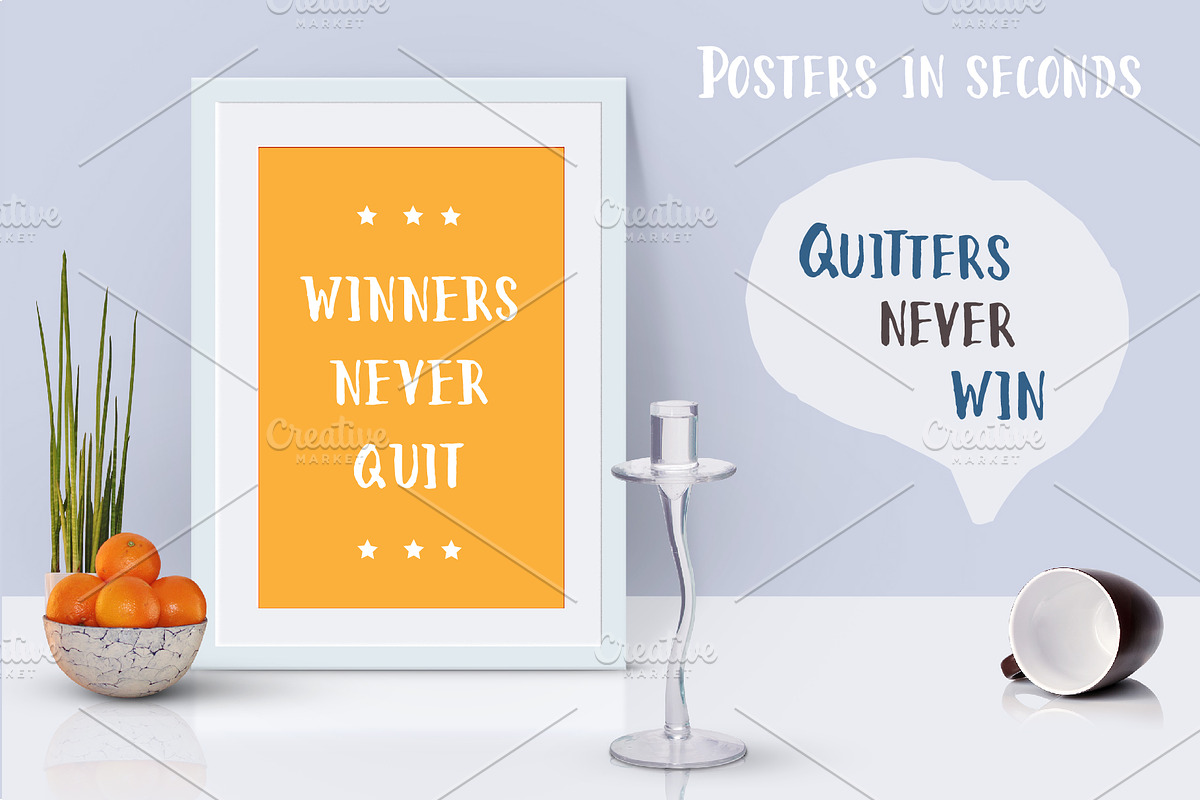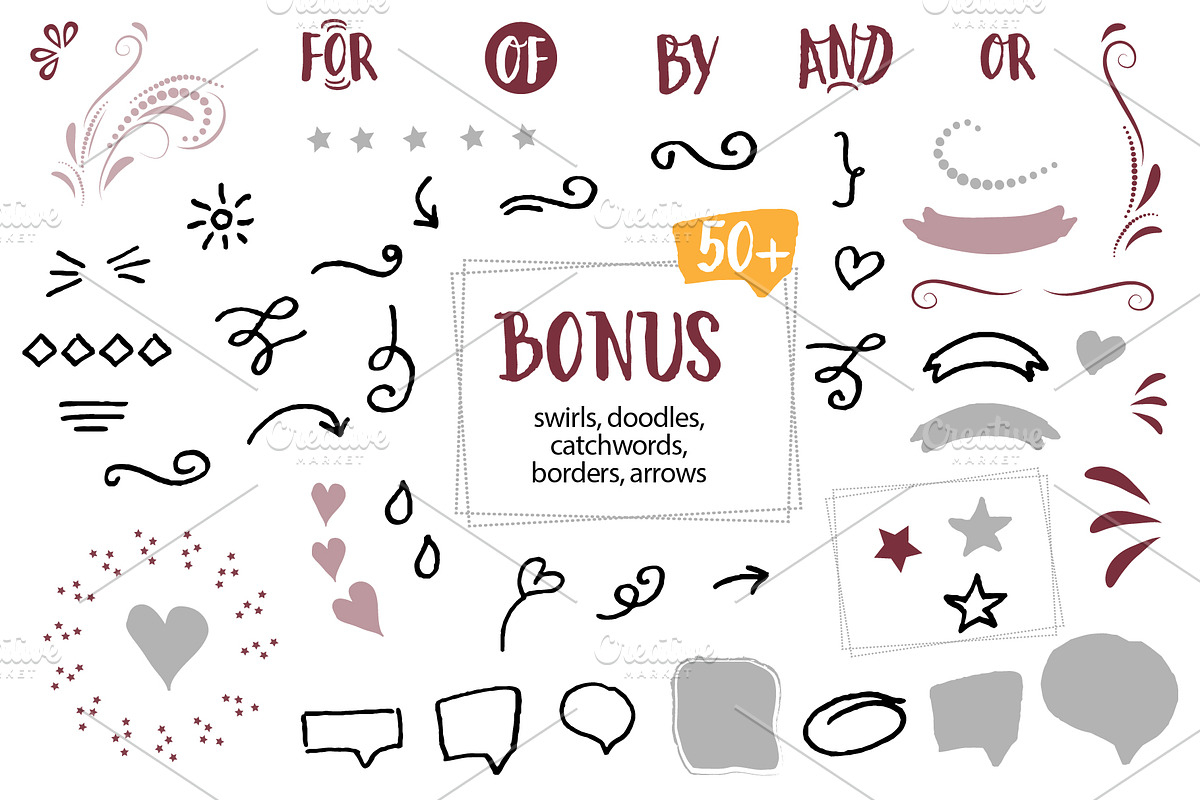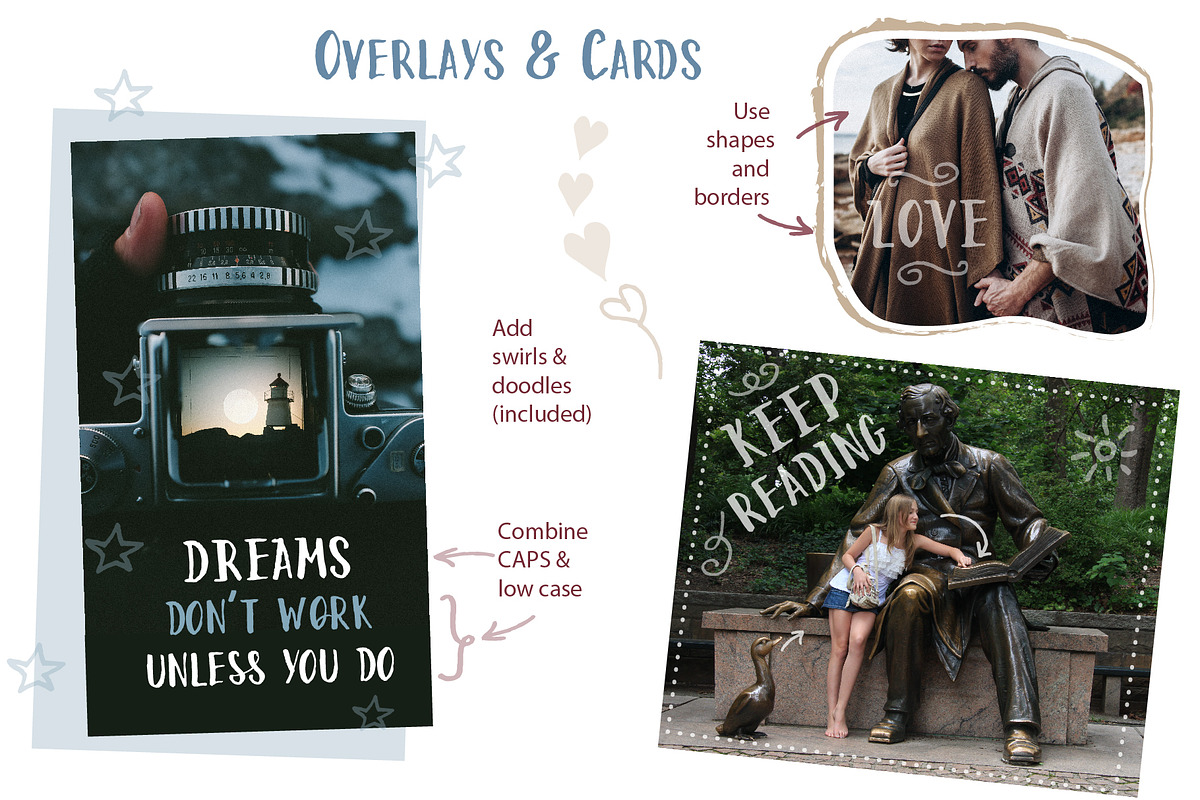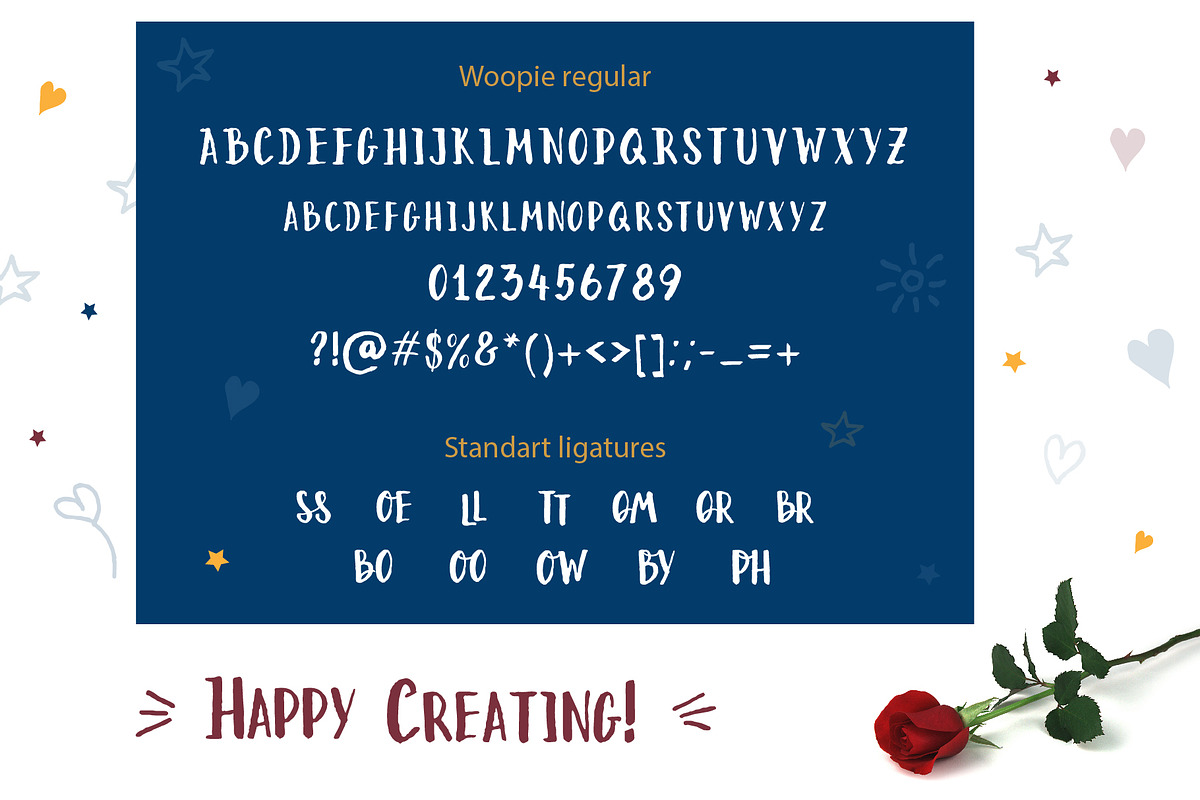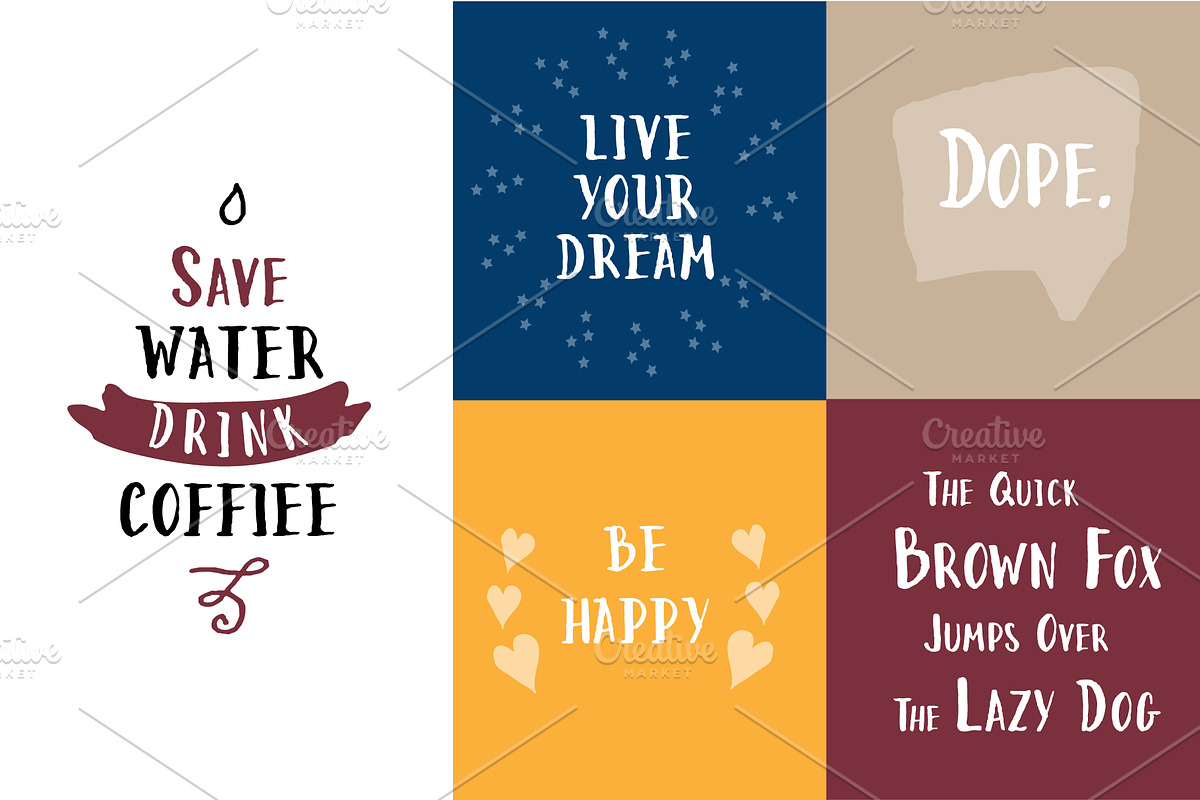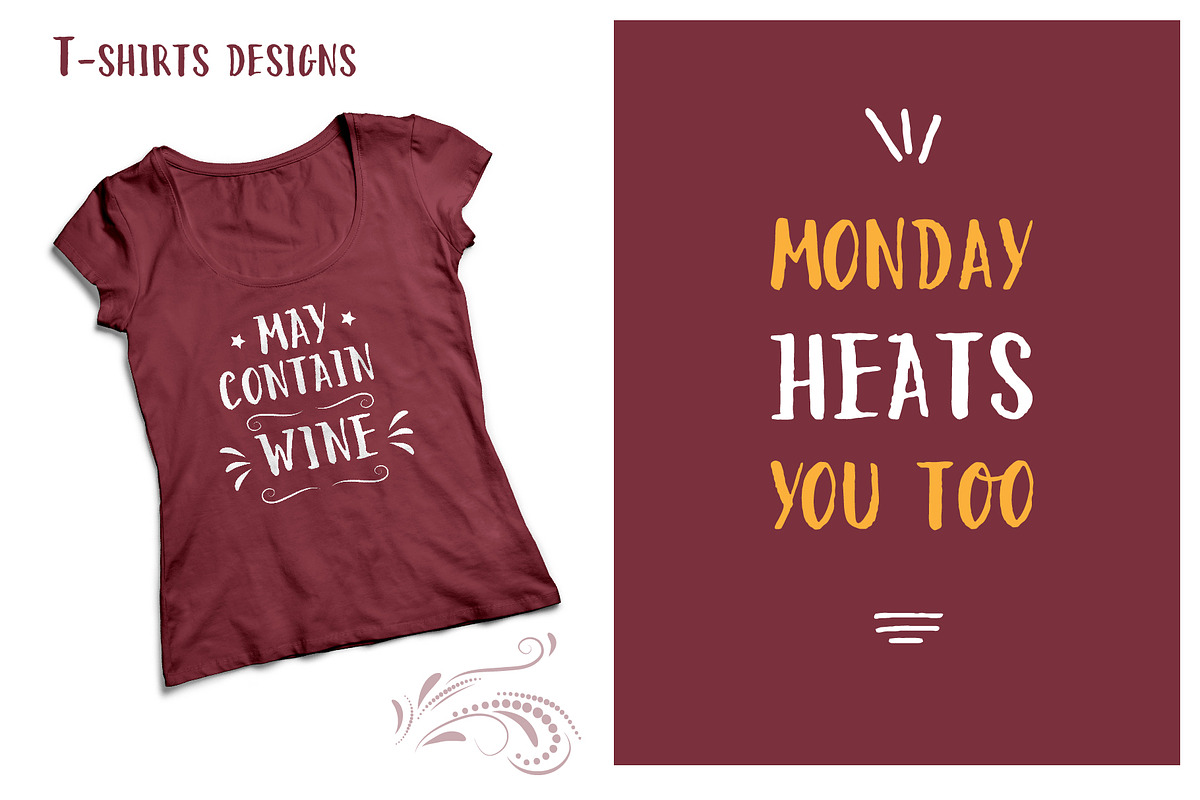
Woopie: a hand-lettered font
Introducing Woopie, a new hand-lettered font! This font is perfect for cute, fun, all-ages projects: cards, prints, logos, wedding invitations, photo overlays, t-shirt, cases, posters, arrange illustration and decoration.
Bonus! You'll also get over 50 swirls, doodle elements, borders, shapes and catchwords - a set of small words like AND, OF, FOR and more.
Standard characters A-Z, a-z, 0-9, and punctuation
12 double-letter ligature pairs